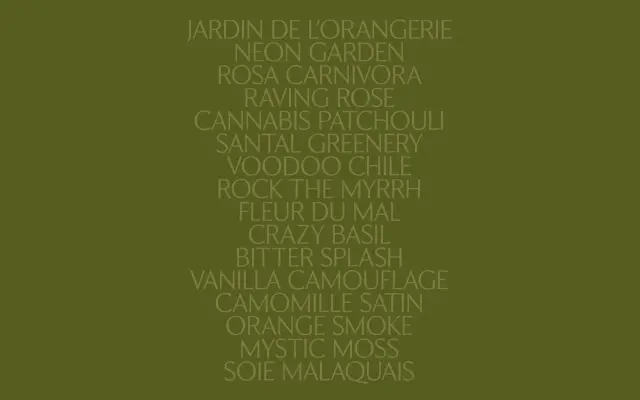
TWK Issey
WELTKERN · Rimasùu Studio · 2025
A calligraphic incise typeface from Rimasùu Studio, drawing on French vintage fashion invitations and Japanese aesthetics to blend stone-carved structure with brush-like gesture.
Sitting in the tradition of Optima, TWK Issey carries no serifs yet reads as though it might, with carved stroke inflections, varying weight contrast and rounded terminals that echo brush pressure. The design stems from a close study of French vintage fashion show invitations and Japanese visual culture, giving it a retro cadence that does not tip into pastiche. With 1,241 glyphs covering over 100 languages and spacing handled by Igino Marini, it is well-equipped for editorial layouts, visual identities and luxury brand work.
TWK Issey belongs to the incise tradition, sitting between serif and sans-serif in the manner of Optima: no serifs, but carved inflections and variable stroke widths that reference stone-cut letterforms. Calligraphic brush gestures and rounded terminals further distinguish it from a pure geometric or grotesque sans.